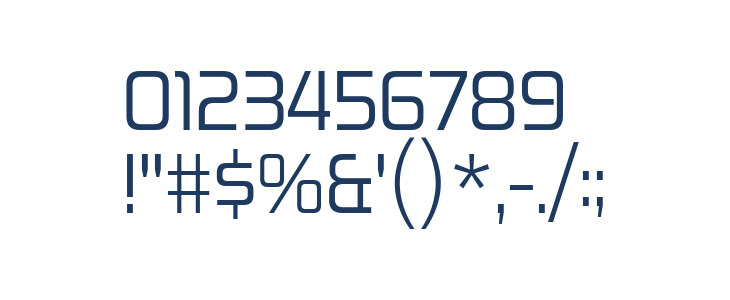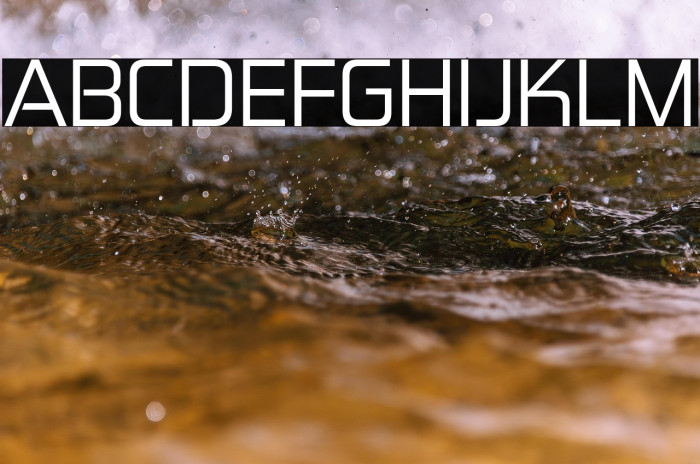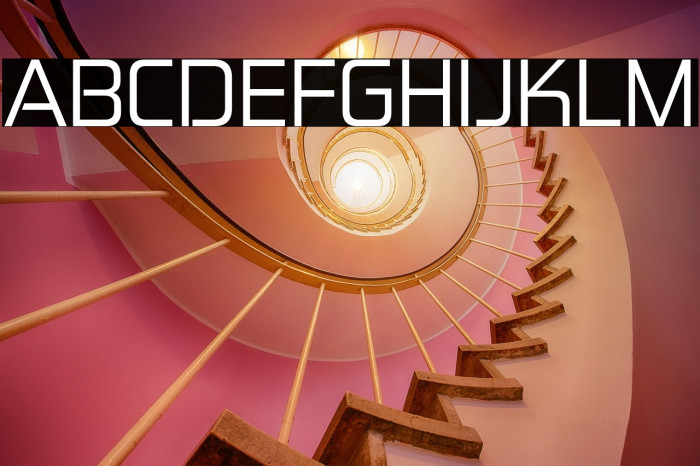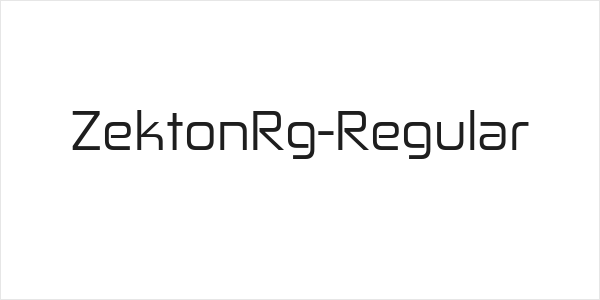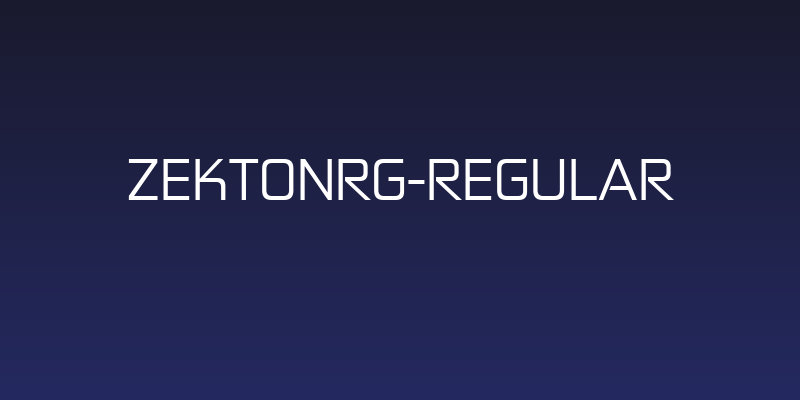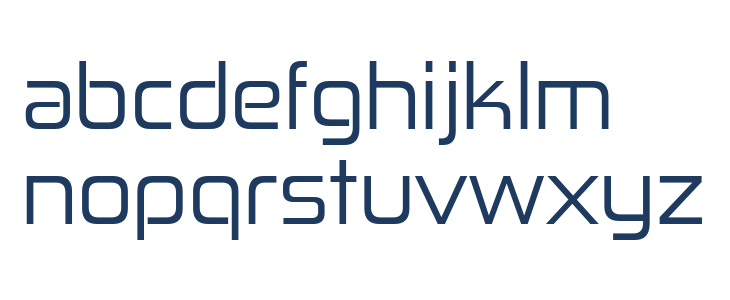
ZektonRg-Regular Font
ZektonRg-Regular Description
This font features a modern, geometric sans-serif design with clean lines and a technical appearance. The characters are well-proportioned, with a consistent stroke width that gives a uniform look across all letters and numbers. The uppercase letters are slightly taller than the lowercase, maintaining a clear distinction between them. The numerals are designed to match the height of the uppercase letters, ensuring readability and balance. Special characters are included, maintaining the same geometric style. The overall appearance is sleek and contemporary, making it suitable for digital interfaces and technical applications.
| Use Case | Headlines, Digital interfaces, Technical documents |
| Proposed Projects | Ideal for technology branding, digital interfaces, software development presentations, and modern advertising campaigns. |